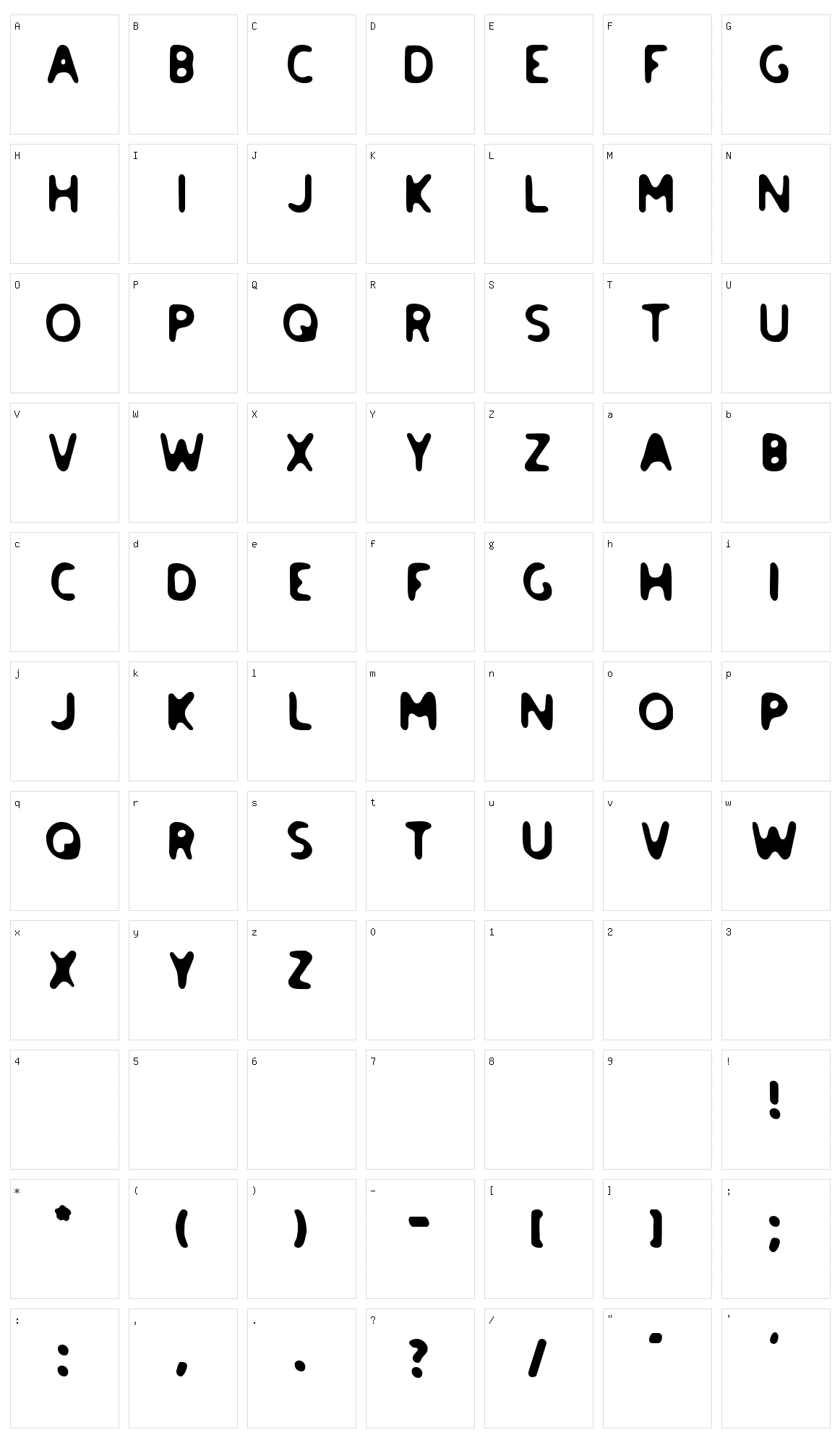
The free font Paradise Road is carefully designed by Frederic, showcasing a thoughtful balance of creativity and usability and falls under the Eroded font style. When you download the ZIP file, it contains only 43.96 KB of font files, making it lightweight and quick to download. Please review the license details below to understand permitted usage and distribution rights. If license information is not available, we recommend using this font for personal projects only or contacting the author directly for commercial usage permissions.